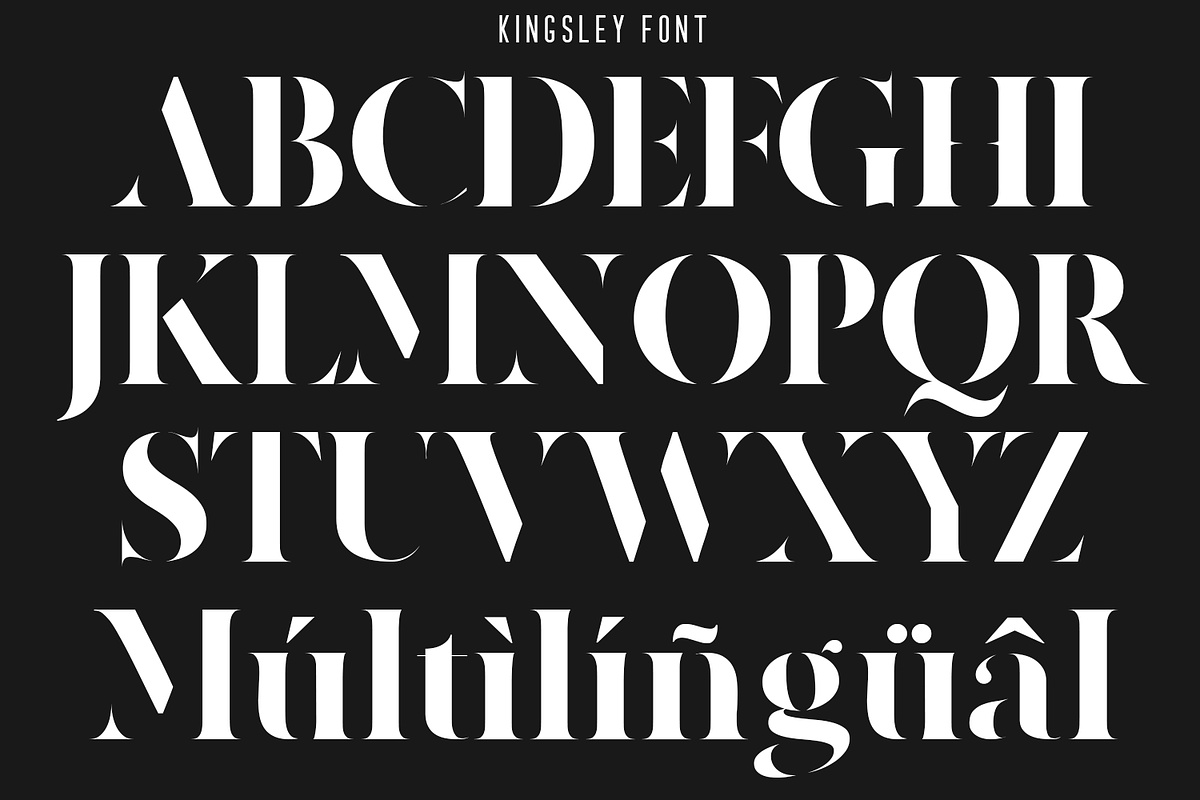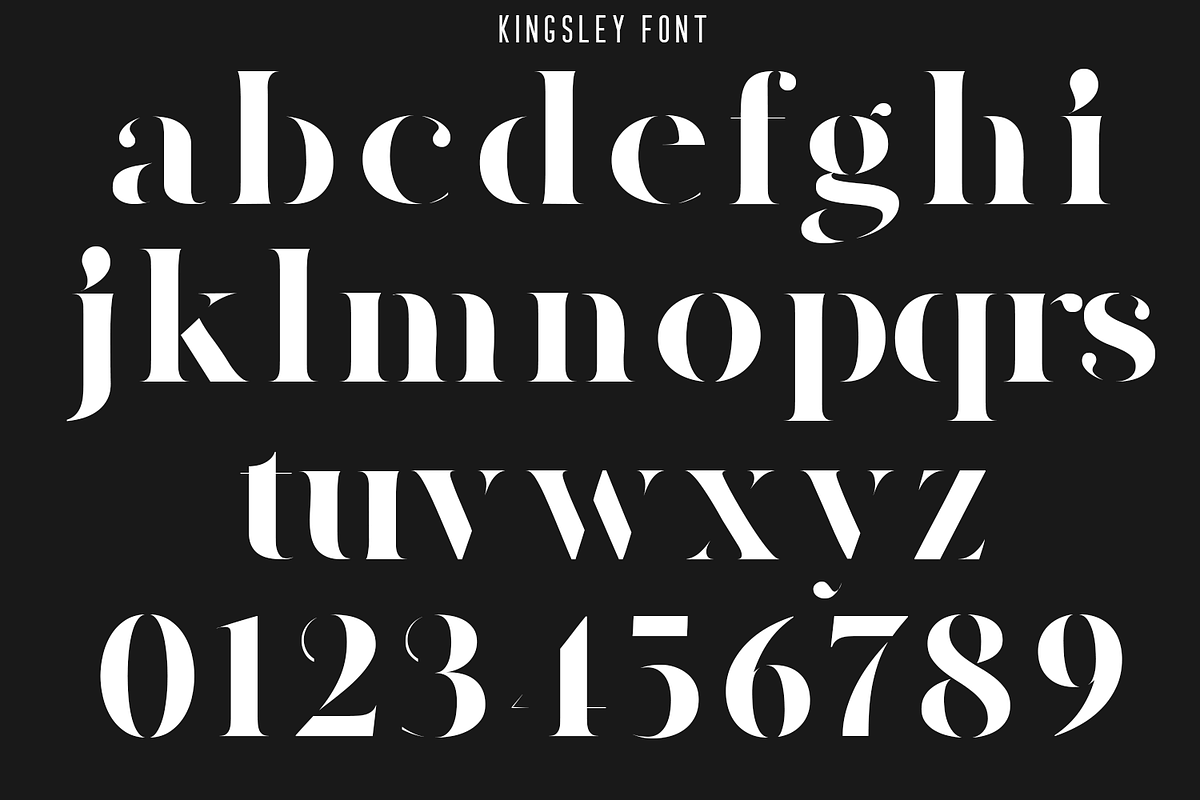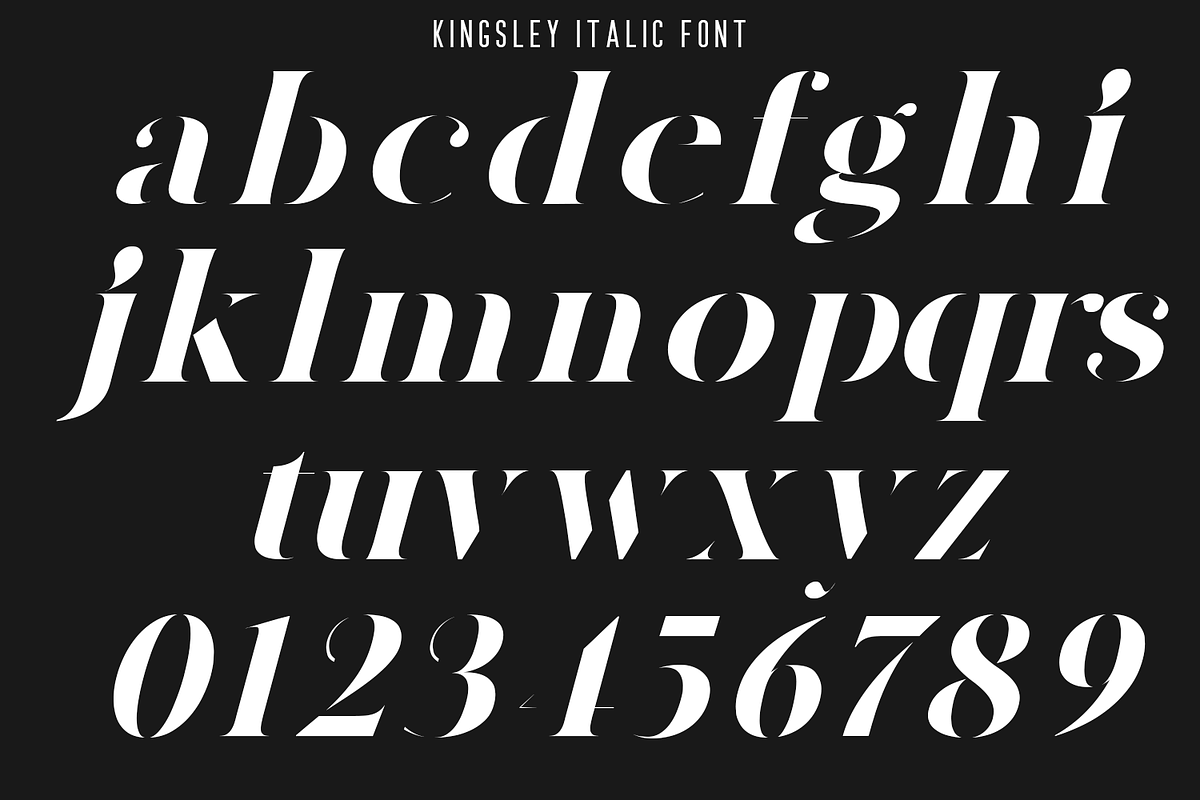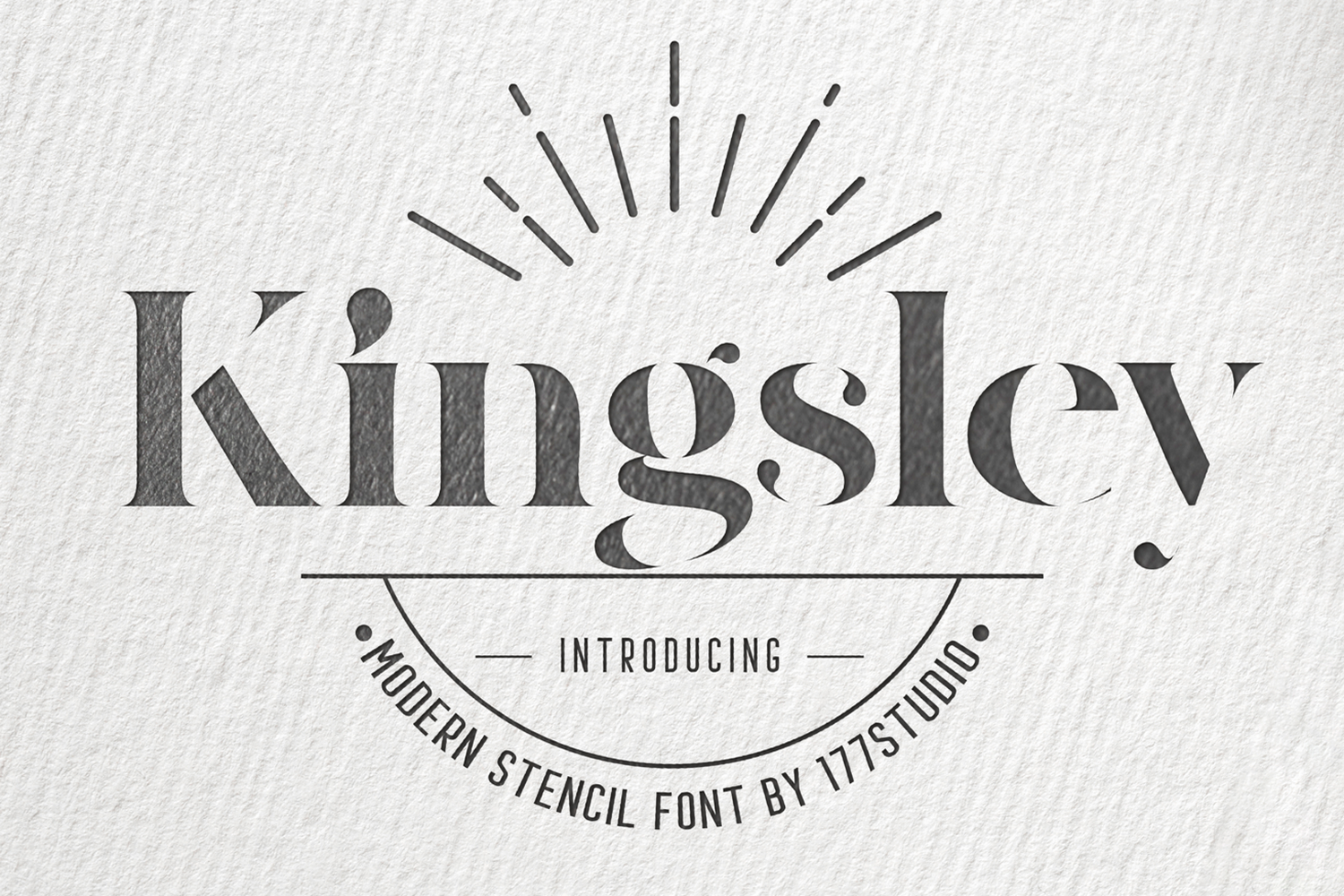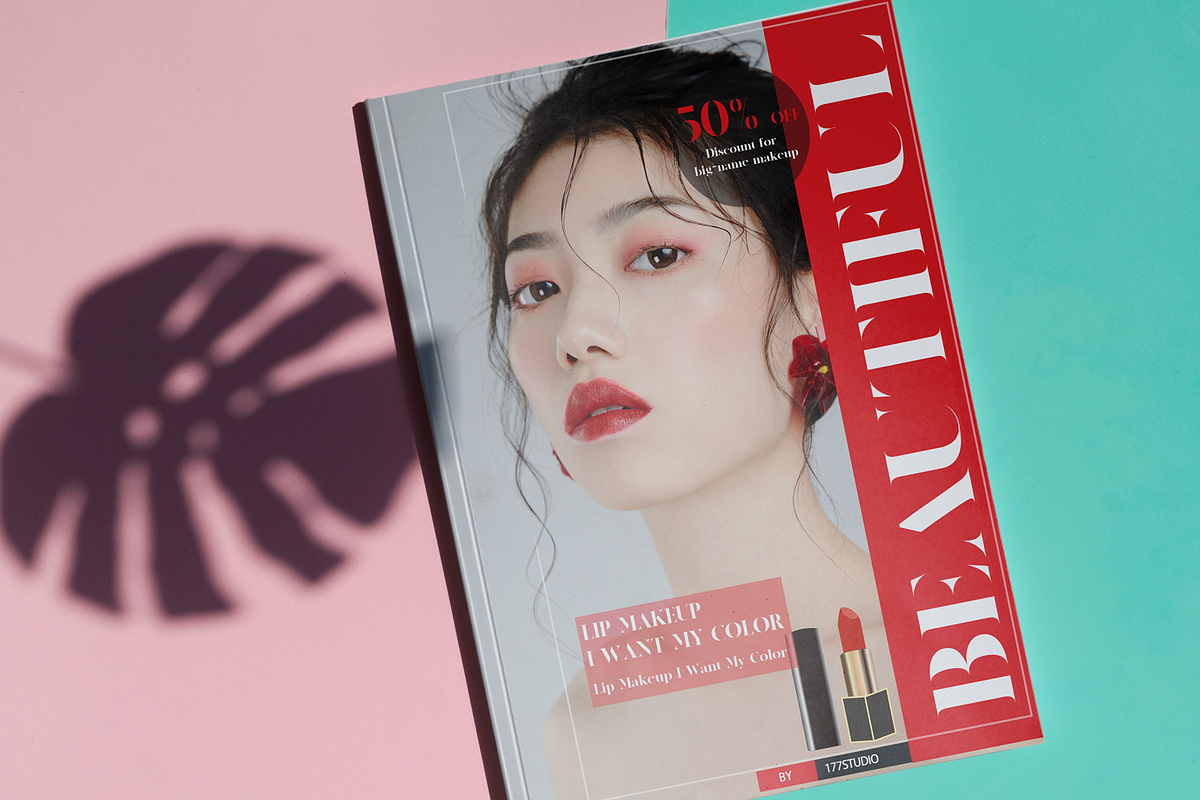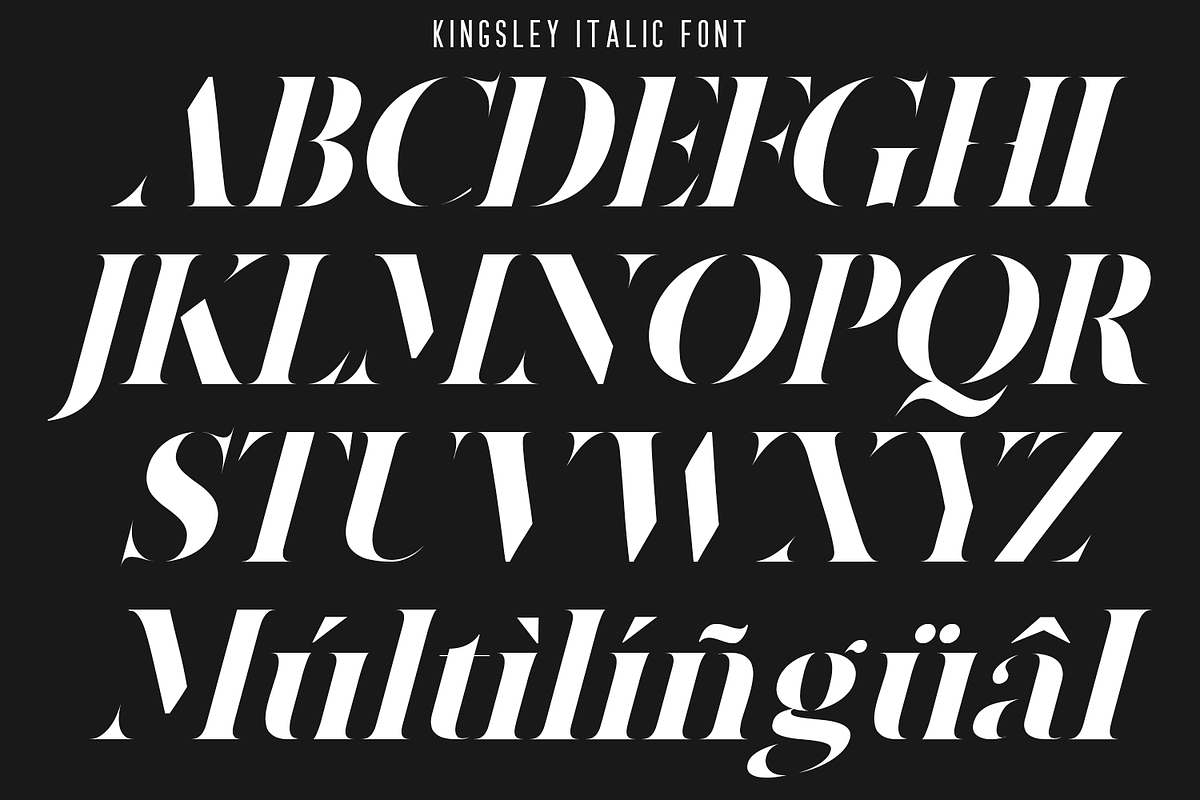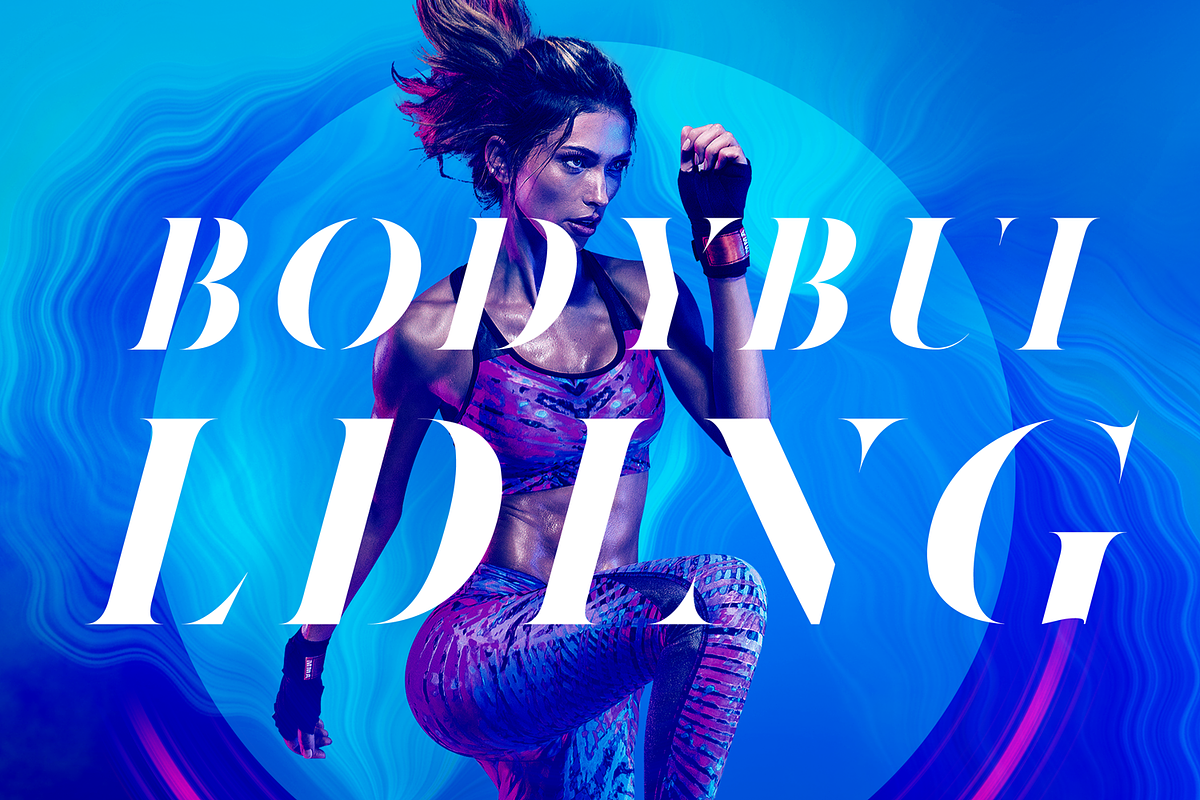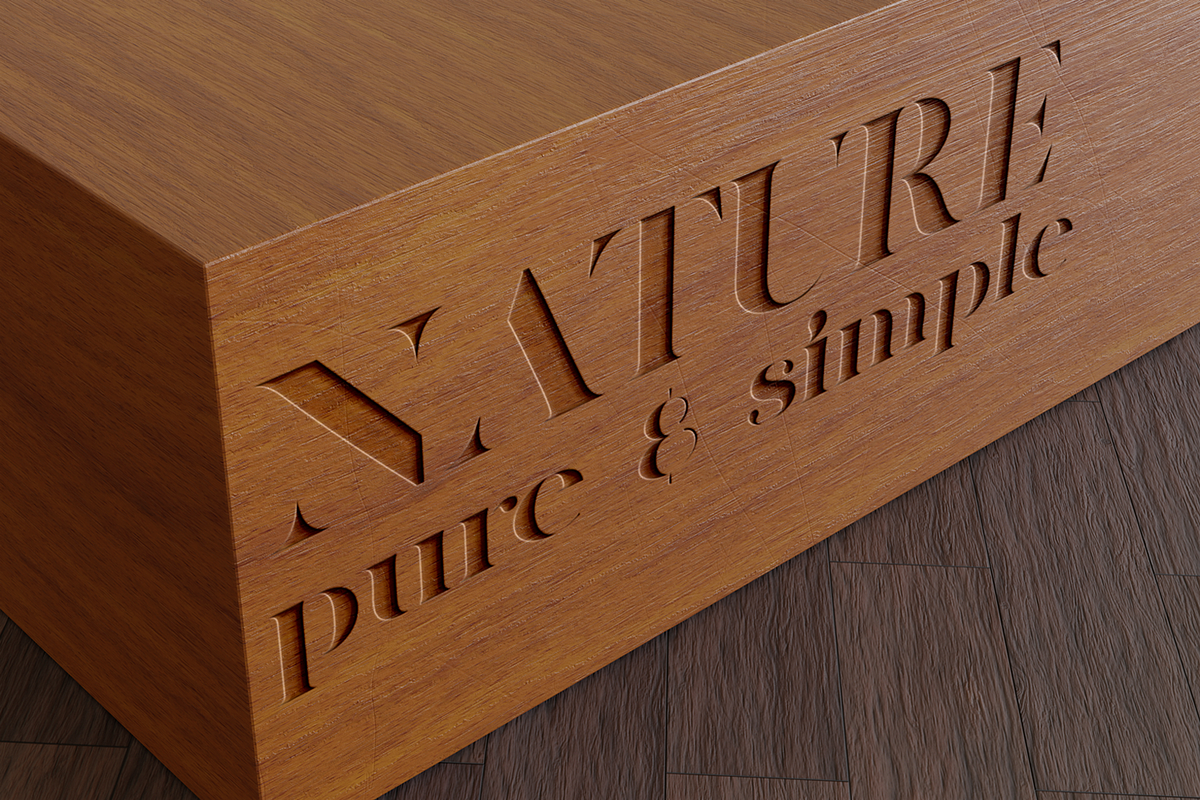
Kingsley – Modern Stencil Font
Kingsley Font is a very feminine and very legible serif stencil font, delicacy and elegance are the words that best characterize this font. It’s seduces the viewer in a subtle and elegant manner. That is perfect for blogging, fashion, art and much more.